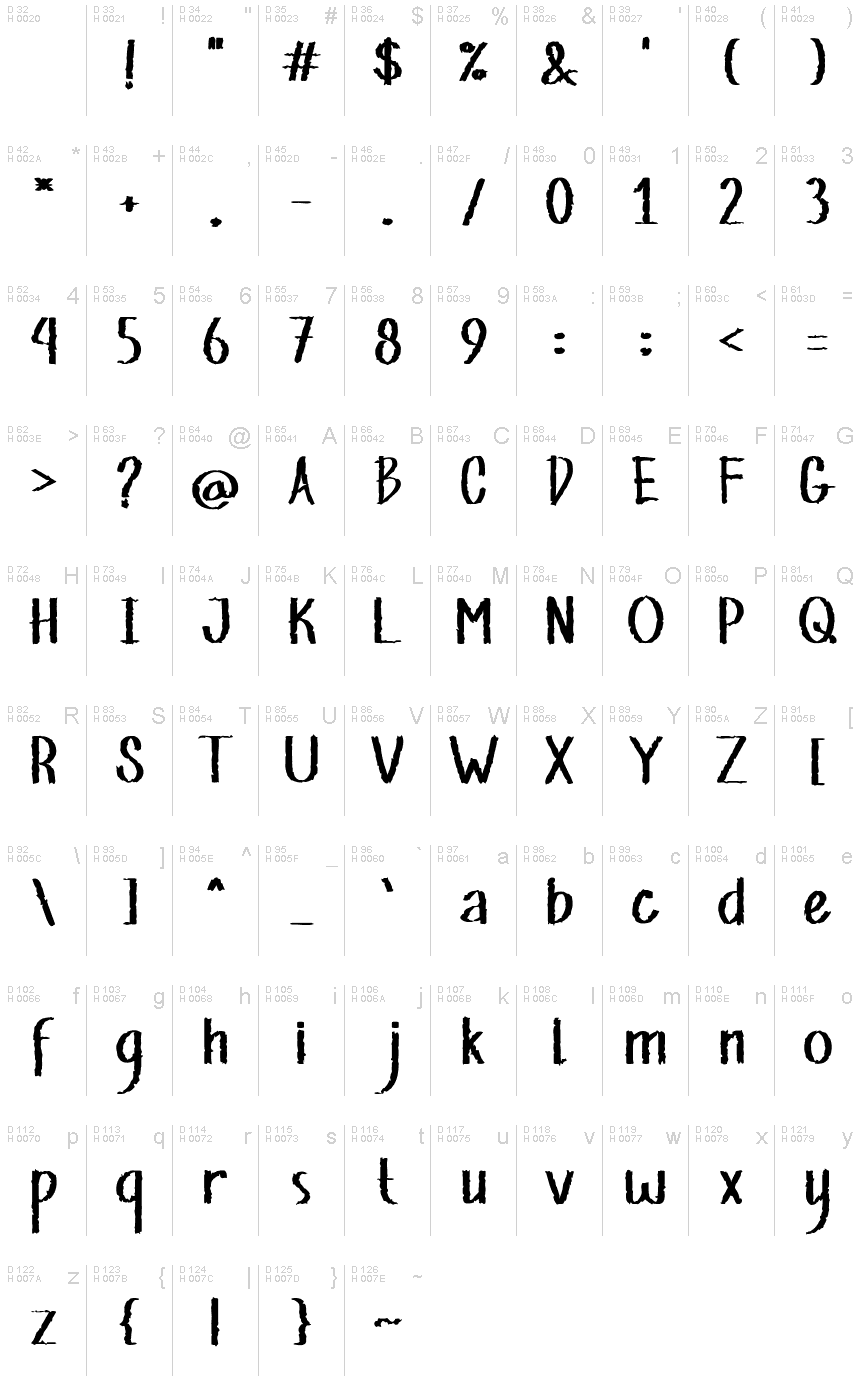
Mistery
Mistery font is a scary typeface designed by Typefactory.
Mistery is a thrilling dark font.
Ideal for each of your mysterious designs, this font will instantly become one of your favorite choices.